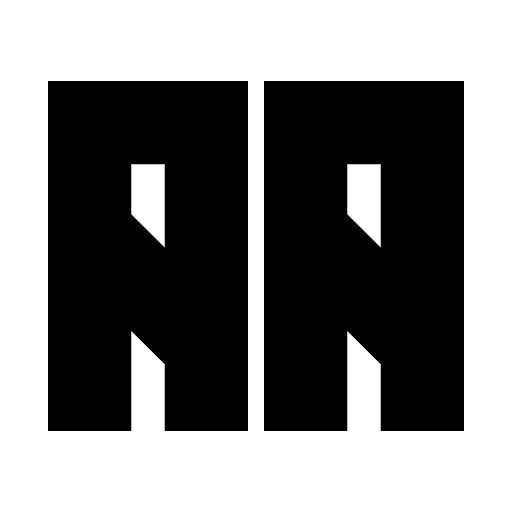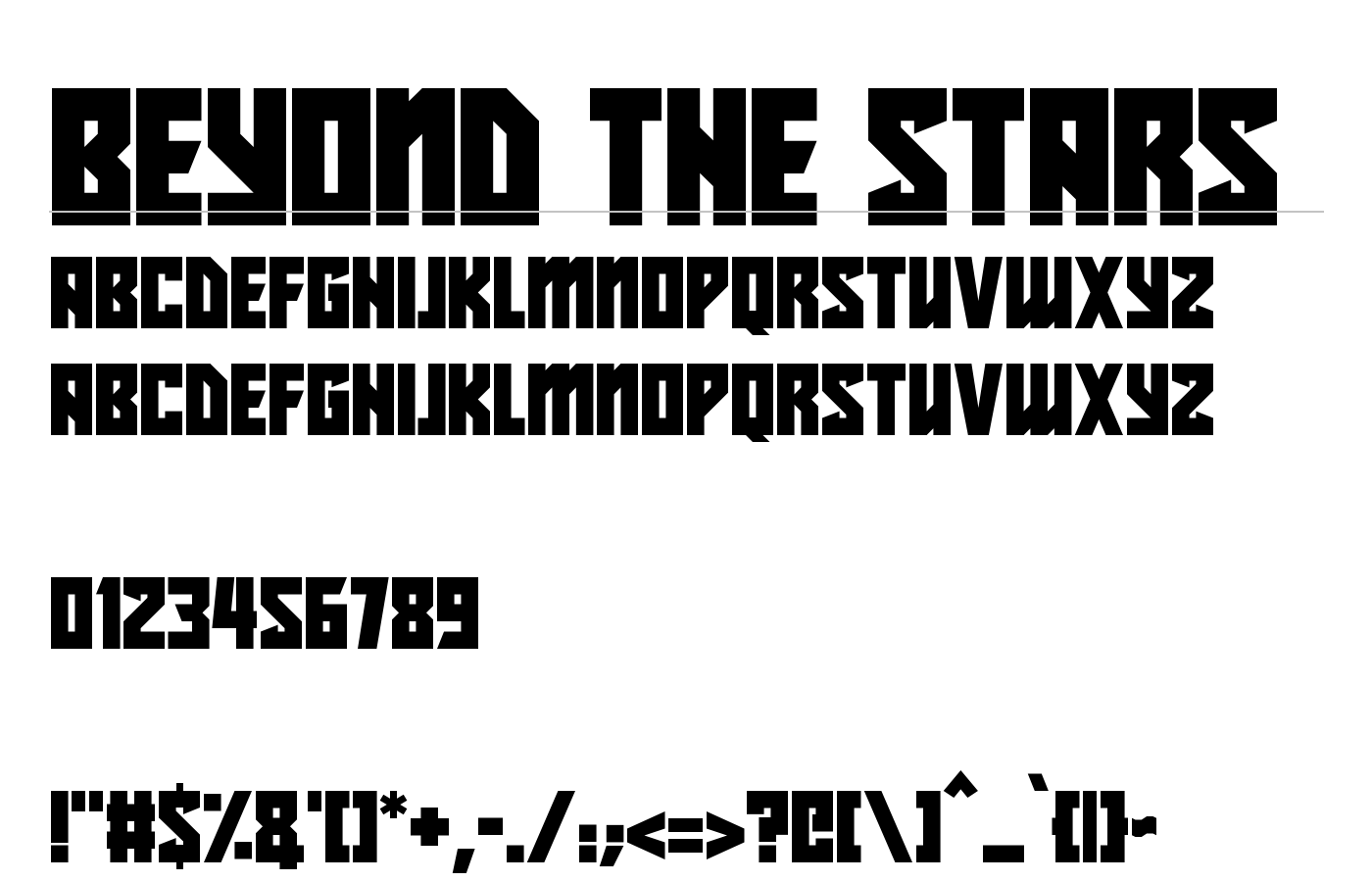
Beyond The Stars is a bold, geometric sans serif font with a strong, blocky presence and sharp angular cuts that impart a futuristic and tech-inspired vibe. Its high weight and condensed structure make it ideal for impactful headlines and branding where a modern, edgy feel is desired. This font works well in designs related to gaming, sci-fi themes, and dynamic poster or logo projects where visual strength and uniqueness matter.
Beyond The Stars Font
About Beyond The Stars Font